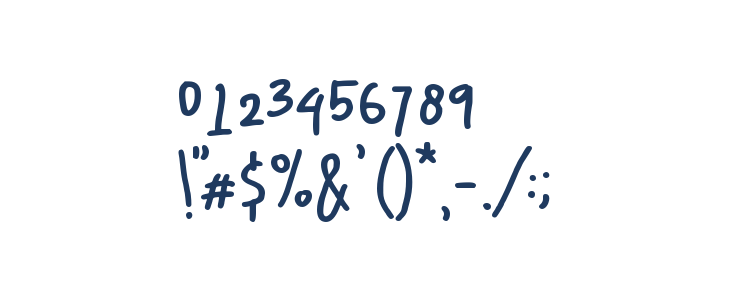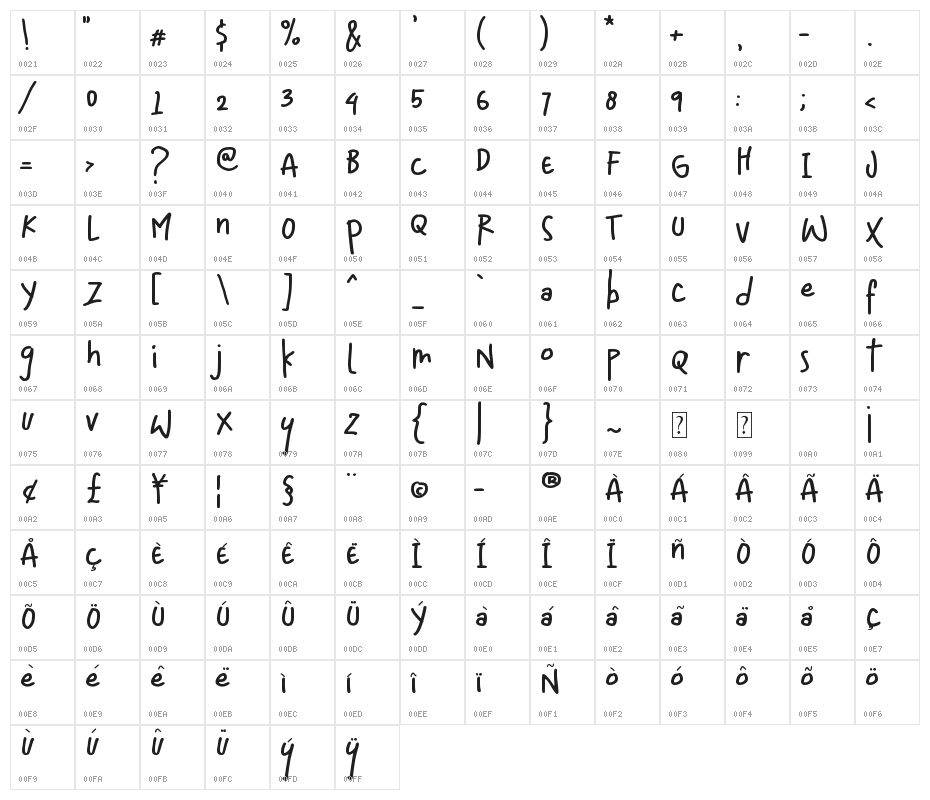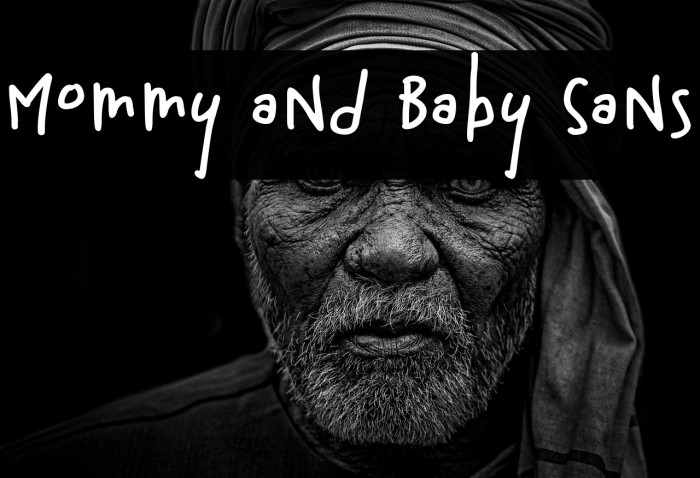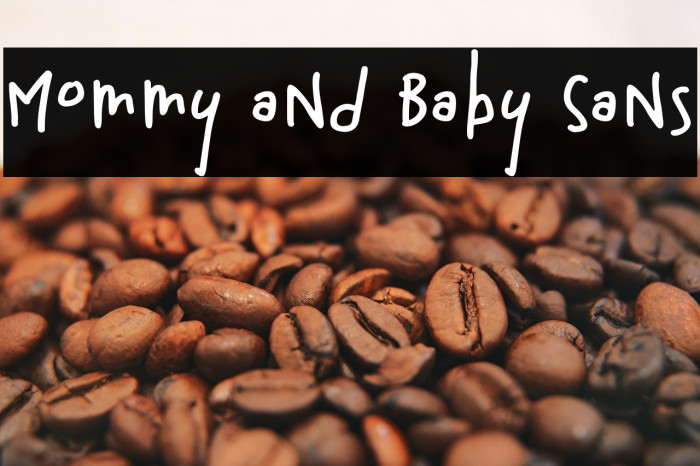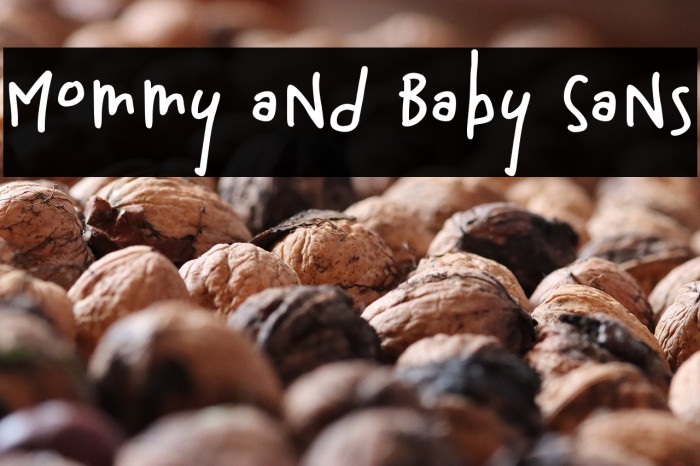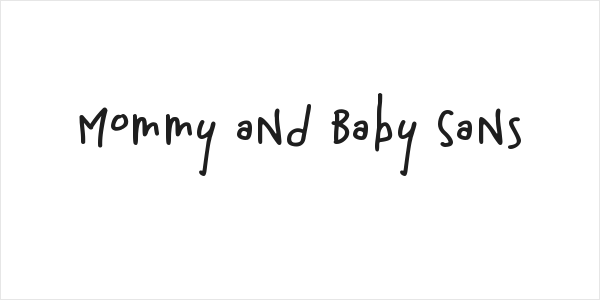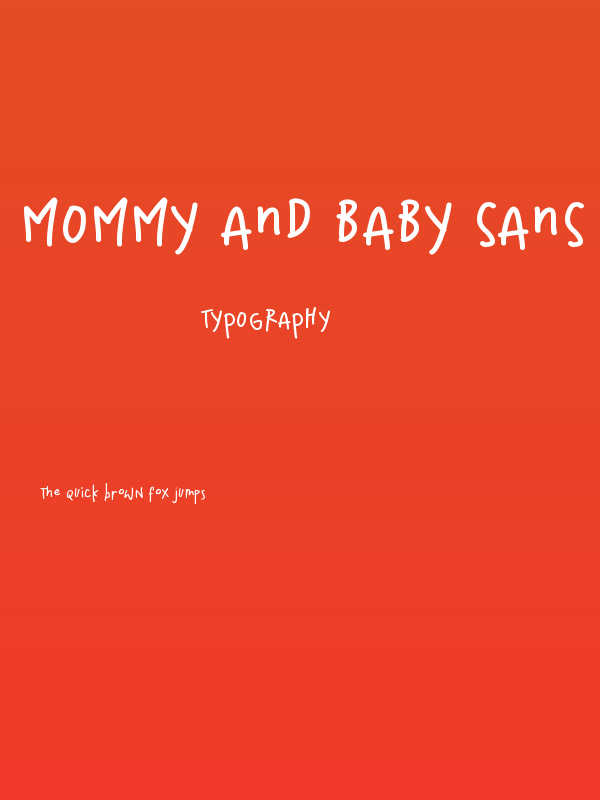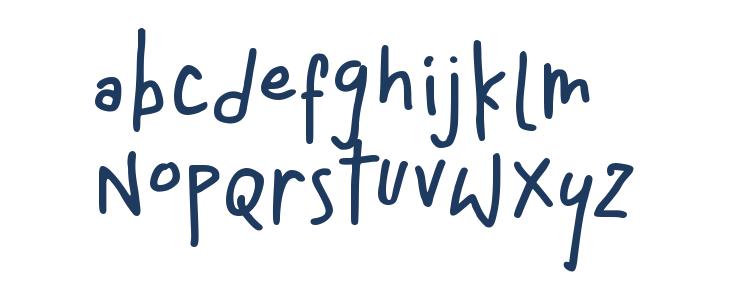
Mommy and Baby Sans Font
Mommy and Baby Sans Description
This playful and informal font features a handwritten style with a casual and friendly appearance. The characters are slightly irregular, giving it a personal touch that mimics natural handwriting. The strokes are consistent in thickness, providing a uniform look across all characters. The font includes both uppercase and lowercase letters, numerals, and a variety of special characters. Its whimsical nature makes it suitable for projects that require a touch of personality and warmth.
| Use Case | Headlines, Informal text, Personal projects |
| Proposed Projects | Ideal for children's books, greeting cards, personal blogs, and informal branding. |